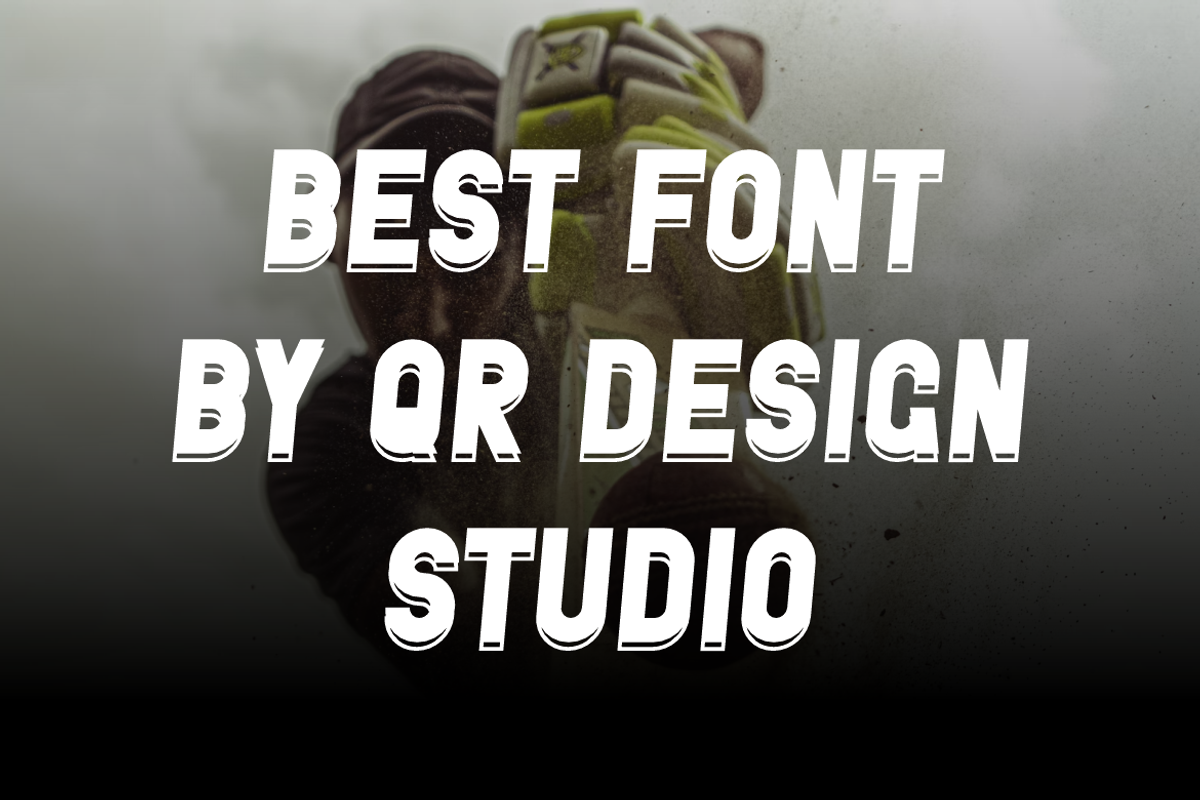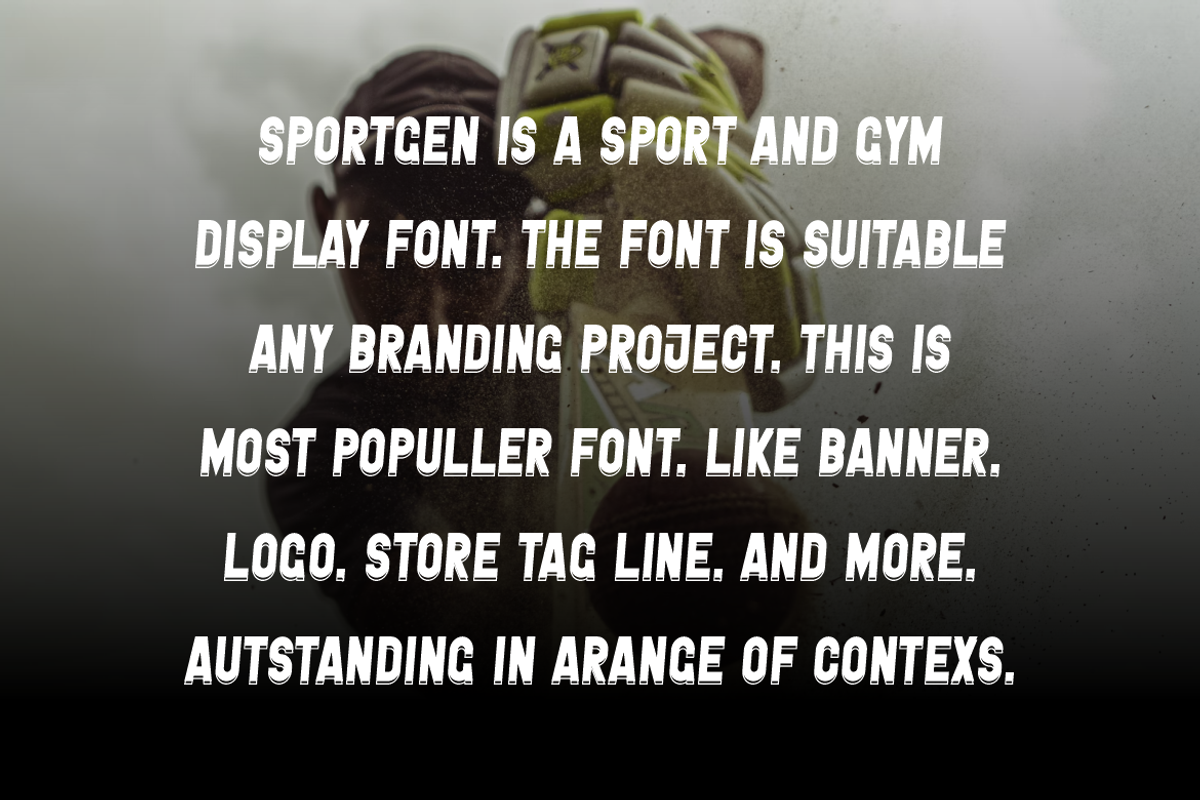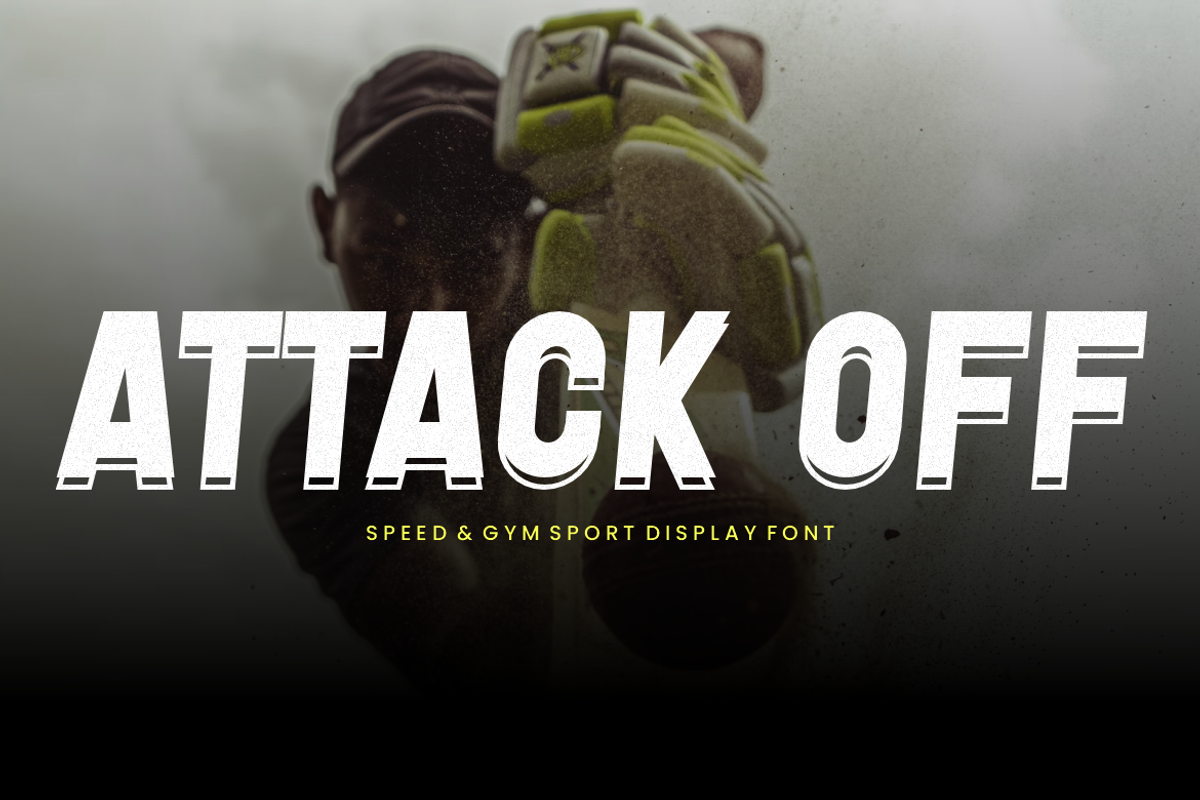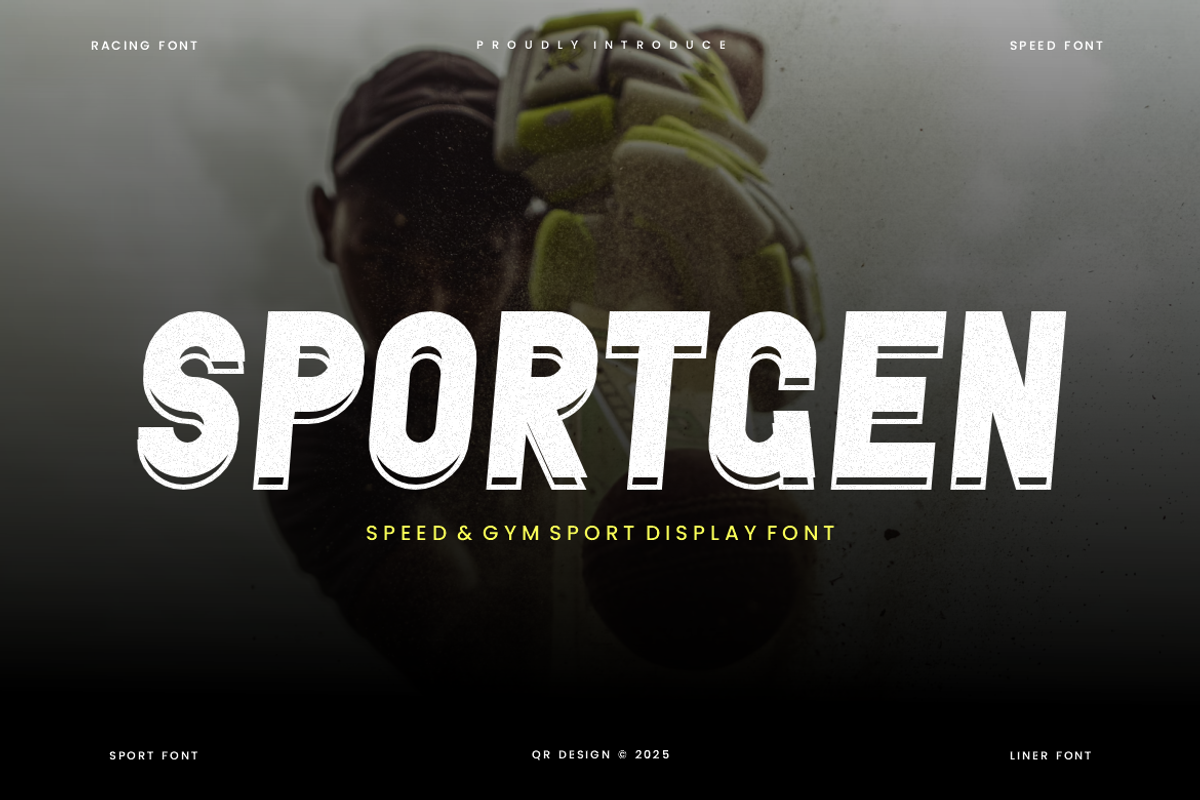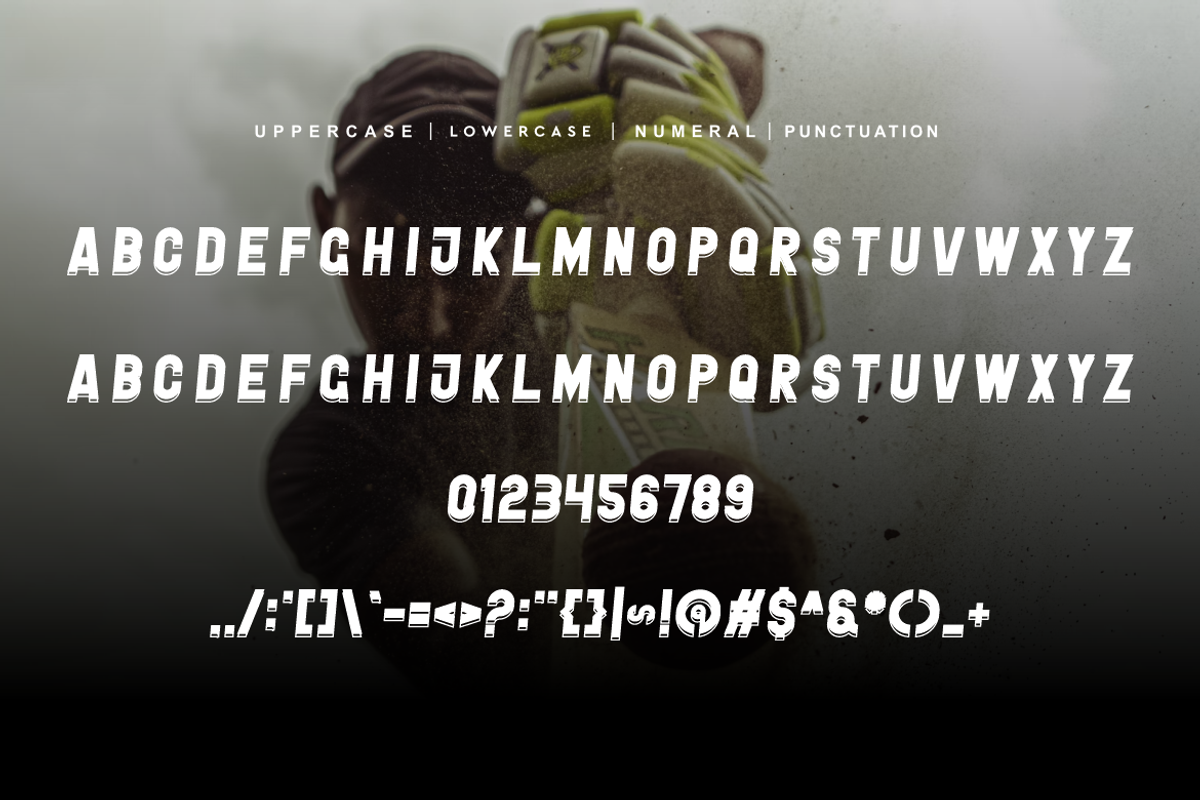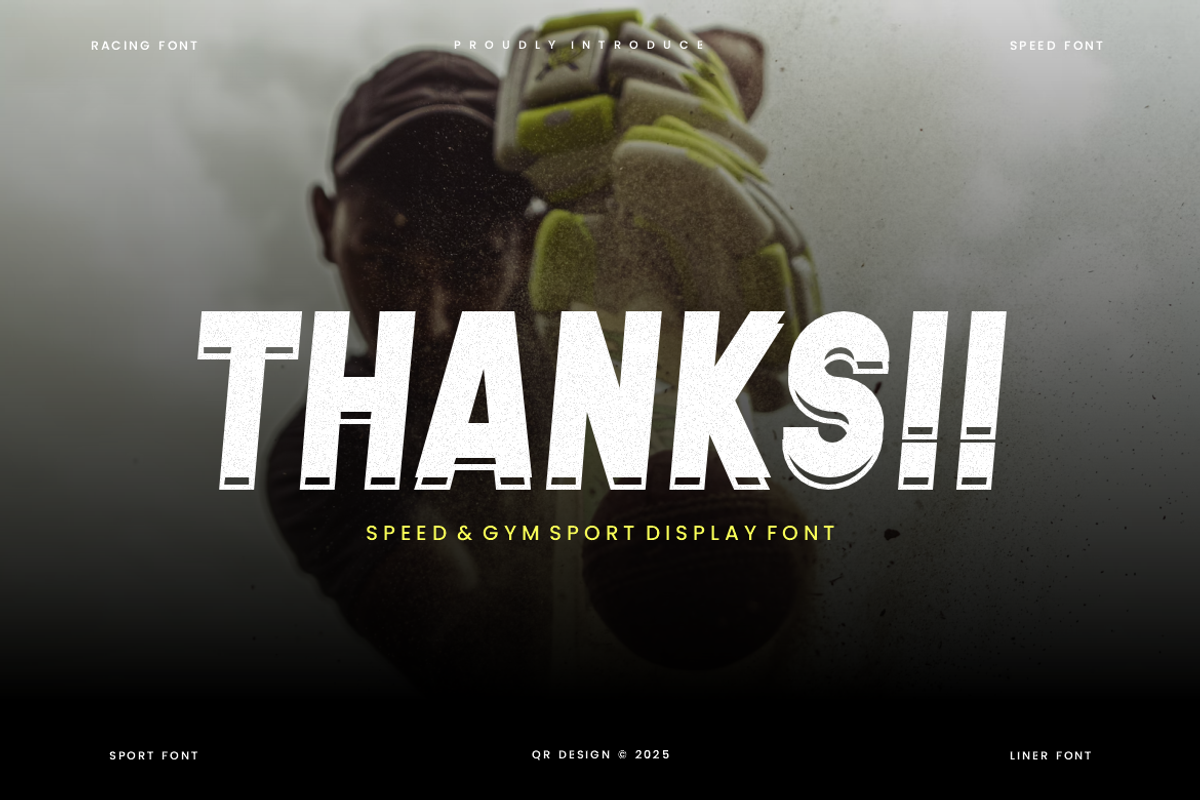
Sportgen - Gym Sport Display Font
Sportgen - Gym Sport Display Font is a bold and authentic display font. The font is suitable for any branding project like poster, logo, sport, and many more. Outstanding in a wide range of contexts.